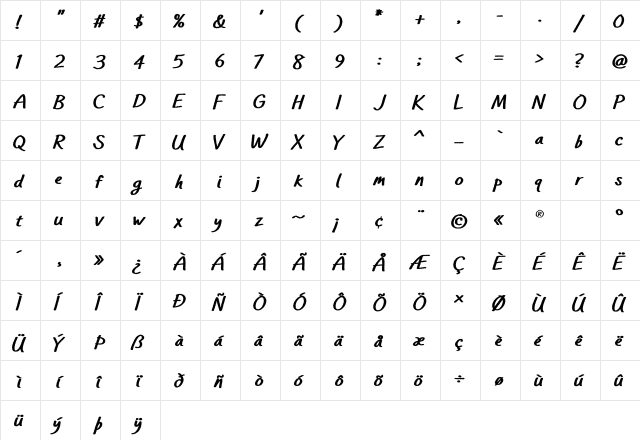
LT Feelgood Rough Regular
| Foundry | Dan P. Lyons |
| Designer | Dan P. Lyons |
Design Context for LT Feelgood Rough Typeface
LT Feelgood Rough trades polish for personality, using distressed and eroded forms to bring grit and attitude to creative work.
Suited to punk-influenced zines, underground music branding, streetwear, and raw, anti-corporate design.
Pro Tip: Pair LT Feelgood Rough with intentionally raw or lo-fi design elements. Fighting against it with overly polished surroundings will undermine its personality.